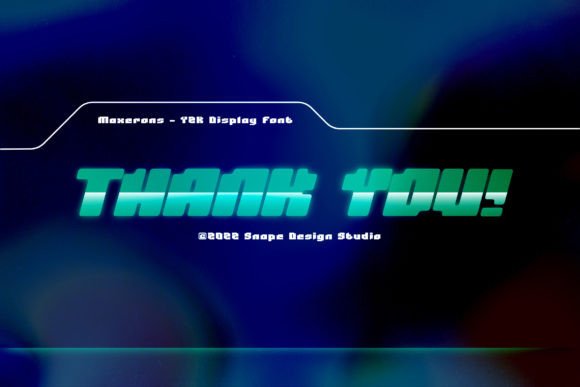
Introduction to Maxerons Font
Have you ever been working on a creative project, pouring your heart and soul into it, only to feel like something is missing? Maybe it’s the perfect font to tie everything together, the one that elevates your design to the next level. If you’re looking for a game-changing design resource, you’re in the right place.
Meet the Maxerons Font, a modern and futuristic display font that’s sure to become a true favorite. With its sleek lines and cutting-edge design, this font has the potential to bring each of your creative ideas to the highest level. Whether you’re working on a futuristic sci-fi project or a sleek tech startup, the Maxerons Font is the perfect addition to your design arsenal.
Key Features of Maxerons Font
- Unique characteristics include a modern and sleek aesthetic, making it perfect for minimalist designs and creative projects.
Honest Review: Maxerons Font
I recently had the chance to work with the Maxerons Font, and I must say it’s been a great addition to my design resources. This font has a unique, elegant feel that makes it perfect for a wide range of creative projects.
Here are some of the things that work well with the Maxerons Font:
- High-quality design: The font is incredibly detailed and well-crafted, making it perfect for designers who value precision.
- Limited font styles: While the font is beautiful, it’s limited to a few styles, which may not be ideal for designers who need a wide range of options.
- Not suitable for bold text: The font is best suited for body text, as it can get a bit difficult to read when used for bold headings.
Overall, I’m impressed with the Maxerons Font, and I think it’s a great addition to any designer’s toolbox. While it may not be perfect, it’s a high-quality design resource that’s perfect for a wide range of creative projects.
Tips for Getting the Most Out of Maxerons Font
To get the most out of Maxerons Font, use it in conjunction with a transparent background to create visually appealing designs. You can also experiment with different font sizes and colors to create a unique design style.
Common Use Cases for Maxerons Font
Maxerons Font is ideal for creative projects that require a high-quality, unique font. Some common use cases include:
Alternatives to Maxerons Font